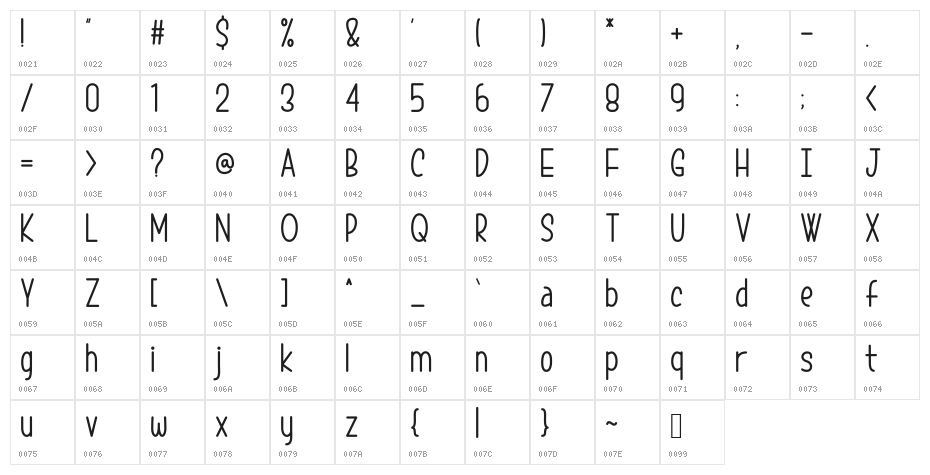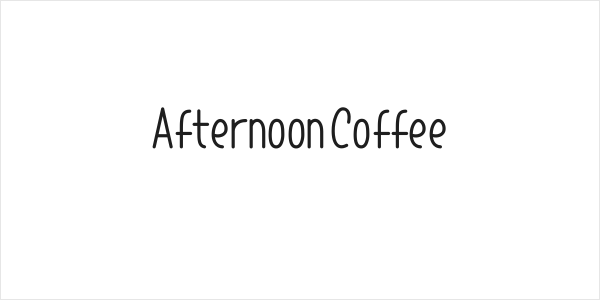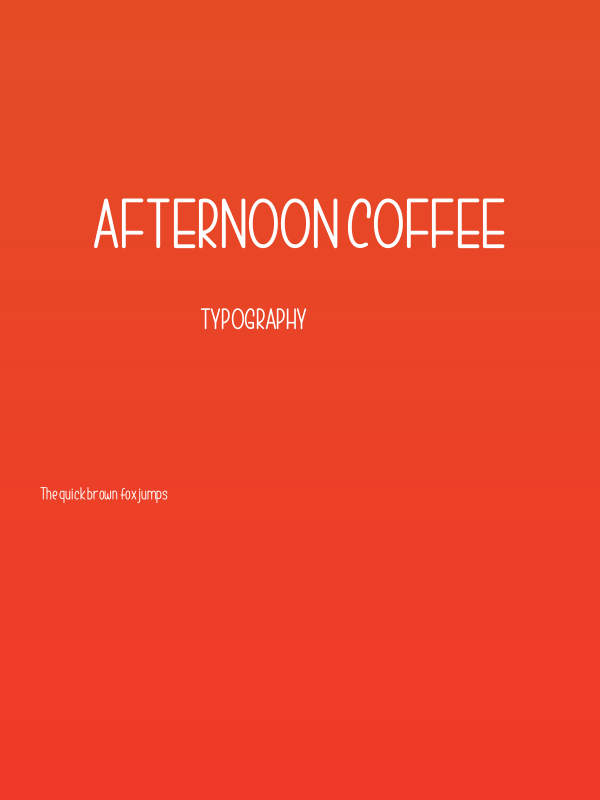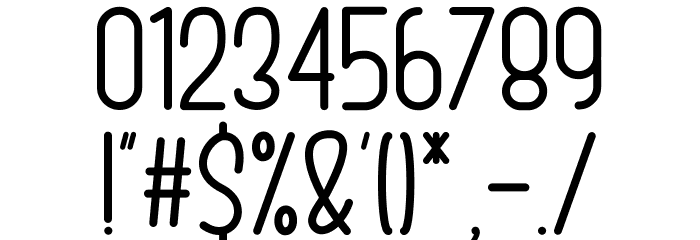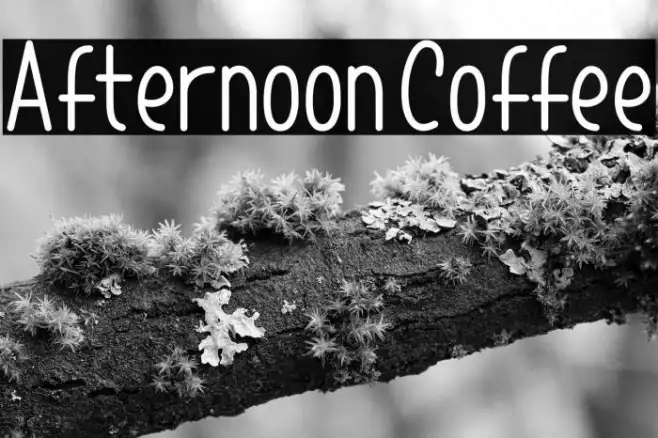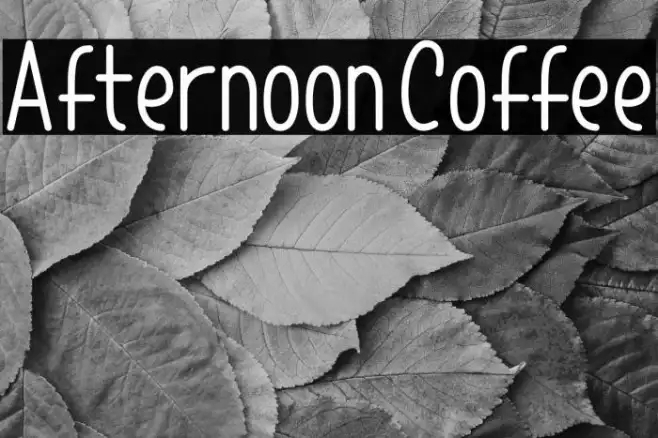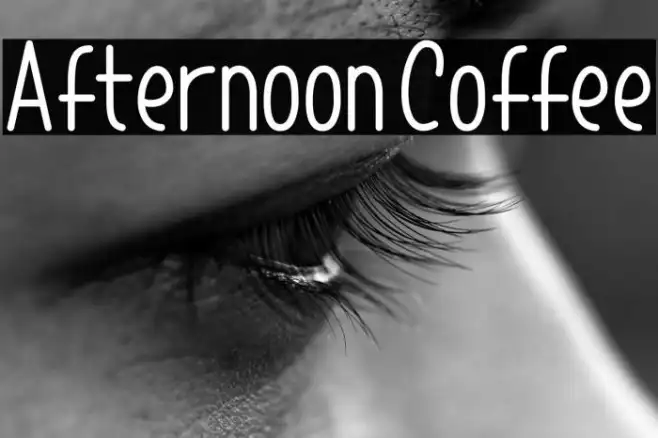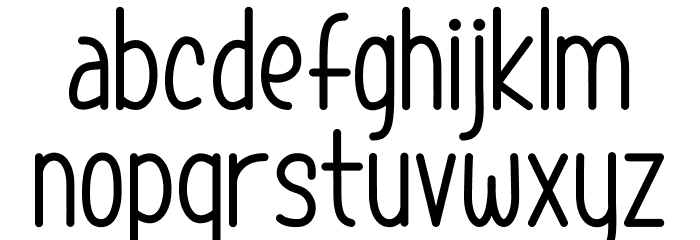
Afternoon Coffee Font
Afternoon Coffee Description
This font features a playful and rounded design, characterized by its smooth curves and consistent stroke width. The letters are evenly spaced, providing a clean and approachable look. The uppercase letters are tall and slightly narrow, while the lowercase letters maintain a friendly and casual appearance. The numerals are clear and easy to read, matching the overall style of the alphabet. Special characters are well-integrated, maintaining the font's cohesive aesthetic. This font's simplicity and charm make it versatile for various design needs.
| Use Case | Headlines, Logos, Casual Text |
| Proposed Projects | Ideal for children's books, playful branding, casual invitations, and friendly web design. |